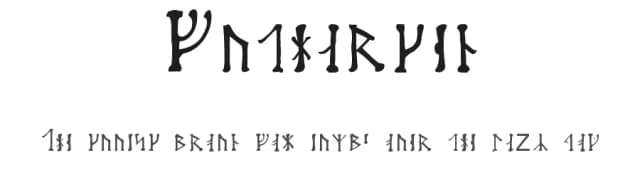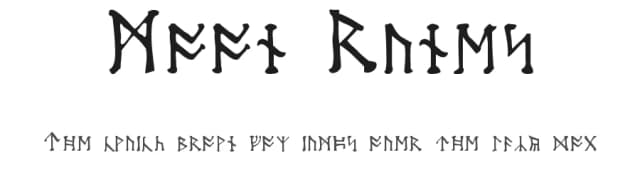
About Angerthas Moria Font
Angerthas Moria is a dingbat font designed by Morten Bek. It includes 116 glyphs, a regular weight, TTF (TrueType) format, and 125 languages. Angerthas Moria is free to download; check the license details on this page before commercial use. Dingbat fonts like Angerthas Moria work best for icons, ornaments, bullet points, and decorative accents.
Angerthas Moria Font is a versatile dingbats font that works for both headings and body text. Pair it with a contrasting sans-serif or serif font to add visual interest and a clear distinction between titles and body copy.
Angerthas Moria Font
by Morten Bek
Angerthas Moria Font is a dingbats typeface by Morten Bek, ideal for logos, invitations, branding, and creative projects.